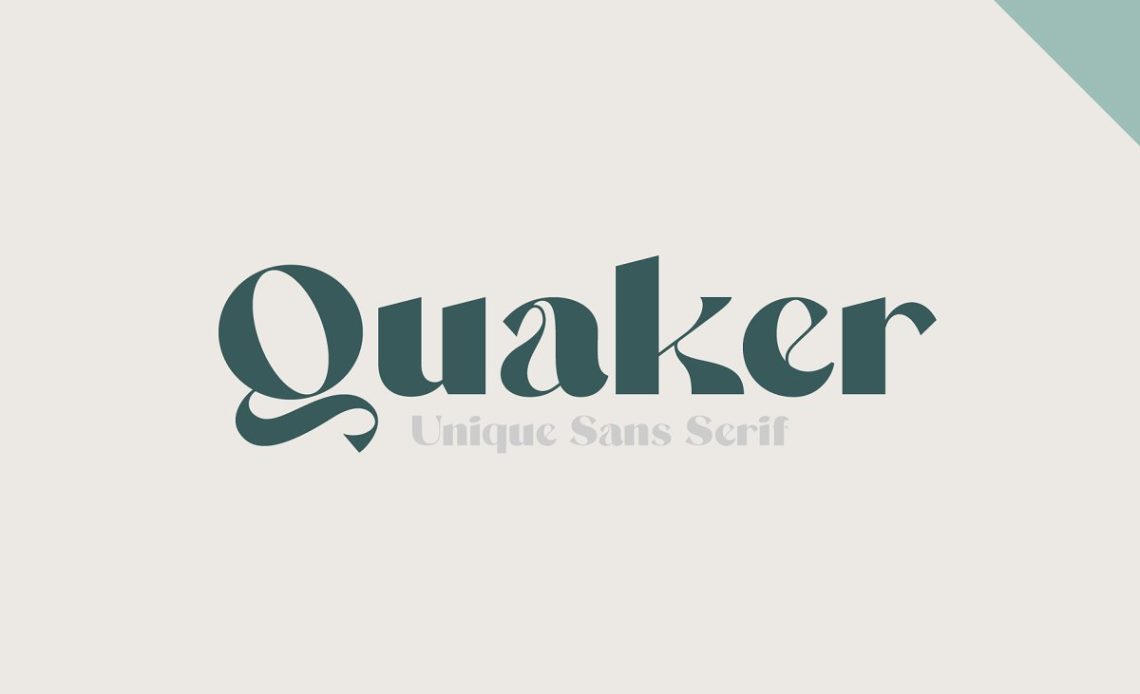
Introducing Quaker - Classic Modern Typeface, a font that will take your designs to the next level. Created by the talented Husain Assyahid, this sans serif font family is the perfect blend of classic and modern styles.
Quaker is not your average font - it's a fancy, vintage-inspired typeface that will make your headlines stand out and your designs look elegant. With its unique lower and uppercase letters, numbers, punctuation, and multilingual symbols, Quaker offers endless possibilities for creativity.
One of the best things about Quaker is its versatility. Whether you're working on a large-scale editorial project, designing a logo for a clothing brand, or creating product packaging, this font will exceed your expectations. It's equally stunning in both large and small sizes, making it a must-have for any designer.